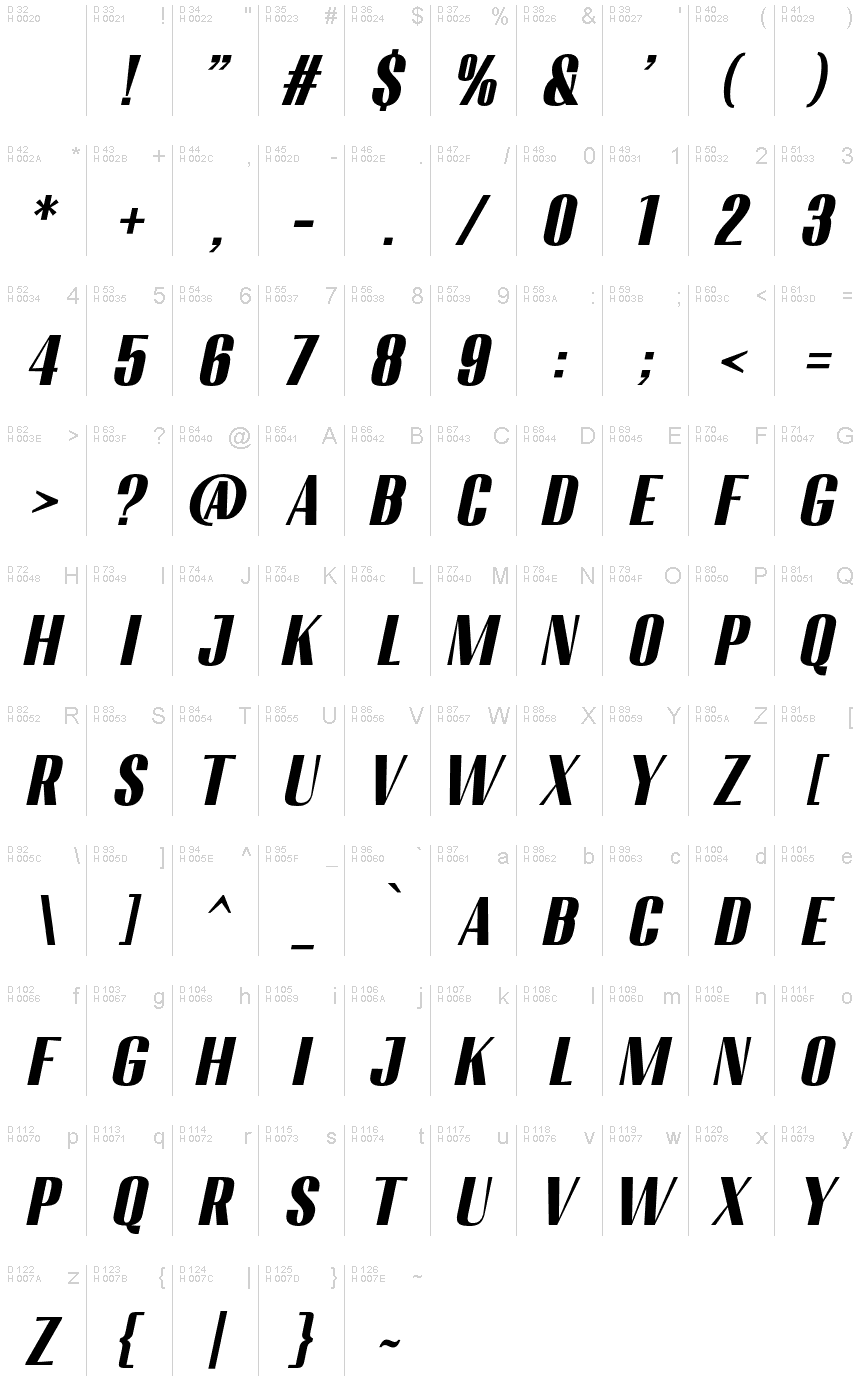
Migha-BlackCNTRSlant
Migha Black CNTR Slant by Seniors Studio is the perfect font for projects that require a strong and bold statement. This sans serif typeface features an extra-condensed width, making it ideal for headlines and titles. Its slanted design adds a unique touch of personality to any project, making it stand out from other fonts. Migha Black CNTR Slant is especially suitable for designs that require a modern and edgy look, such as fashion magazines, music posters, or tech blogs. Whether you're looking to create a minimalist logo or design an eye-catching website header, this bold font is sure to make an impact.